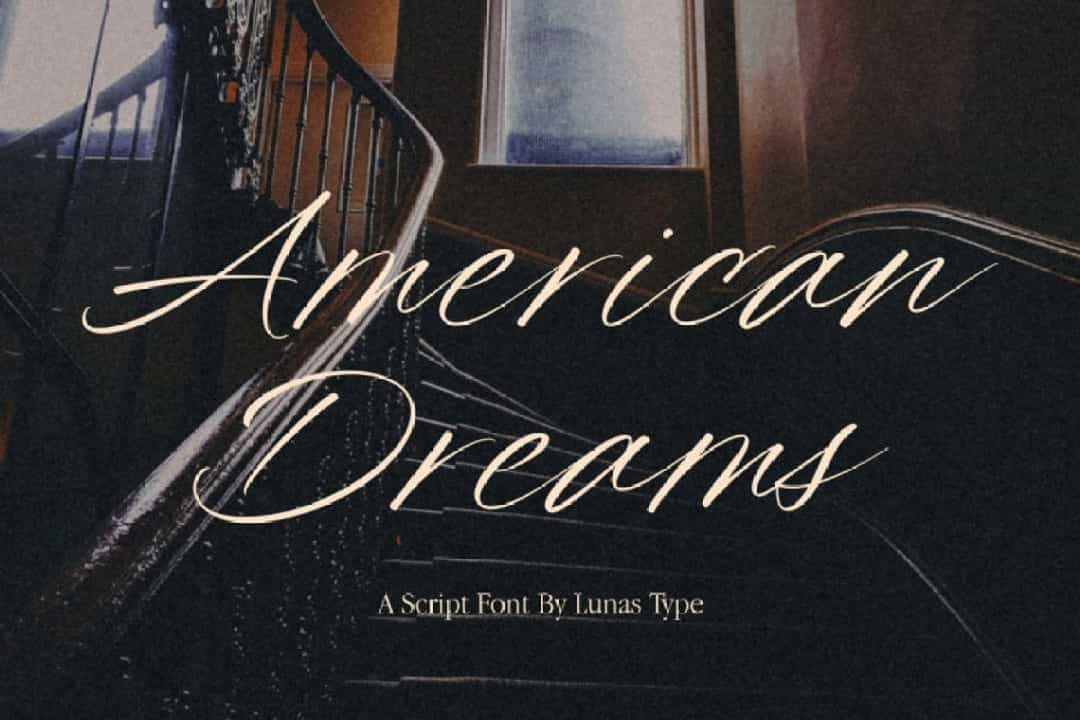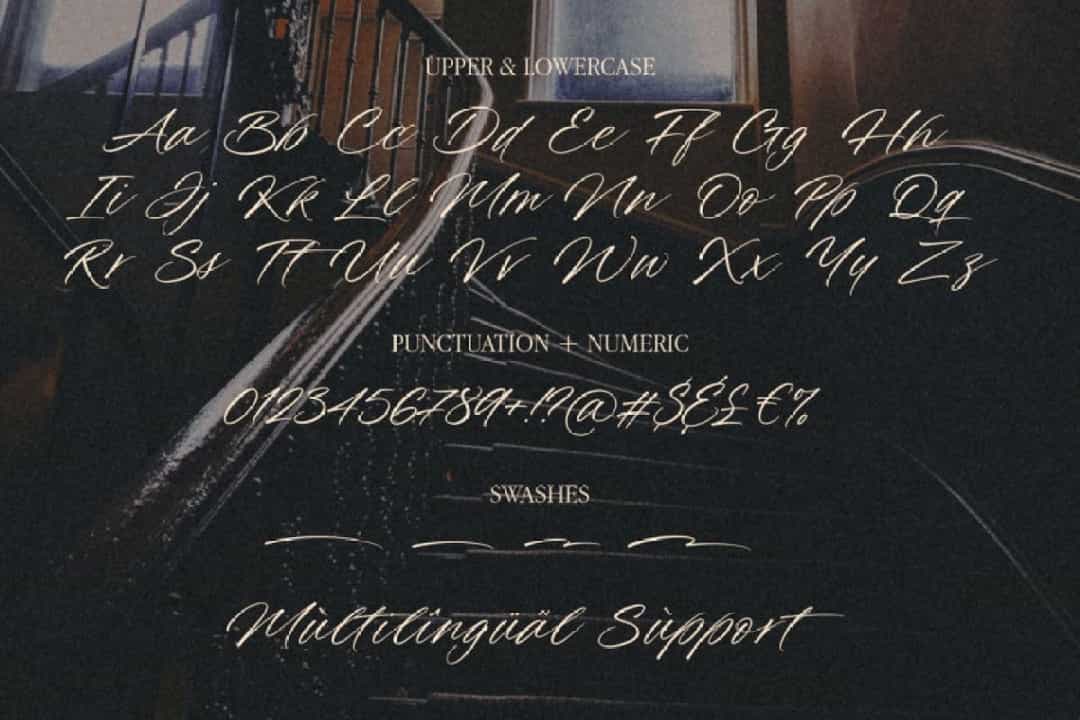
American Dreamsis an exquisite script font which captures the fluidity of handwriting. Boasting graceful curves and exquisite detail, American Dreams embodies elegance and individuality for any distinctive style. Inspired by calligraphy’s art as well as your desire to express yourself creatively uniquely, American Dreams adds an elegant touch to any design project – its flowing letterforms flow effortlessly across pages creating an attractive balance between sophistication and spontaneity.